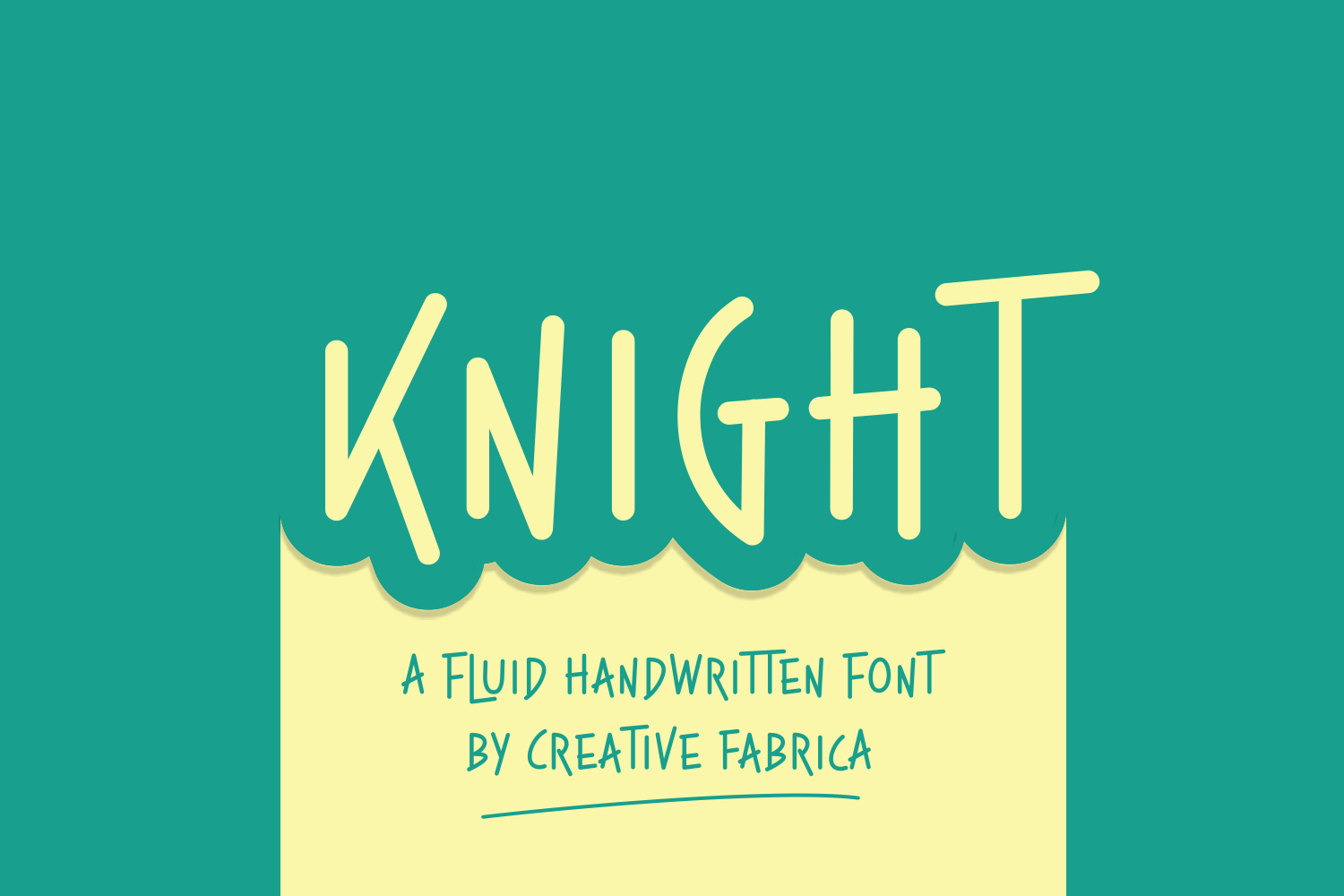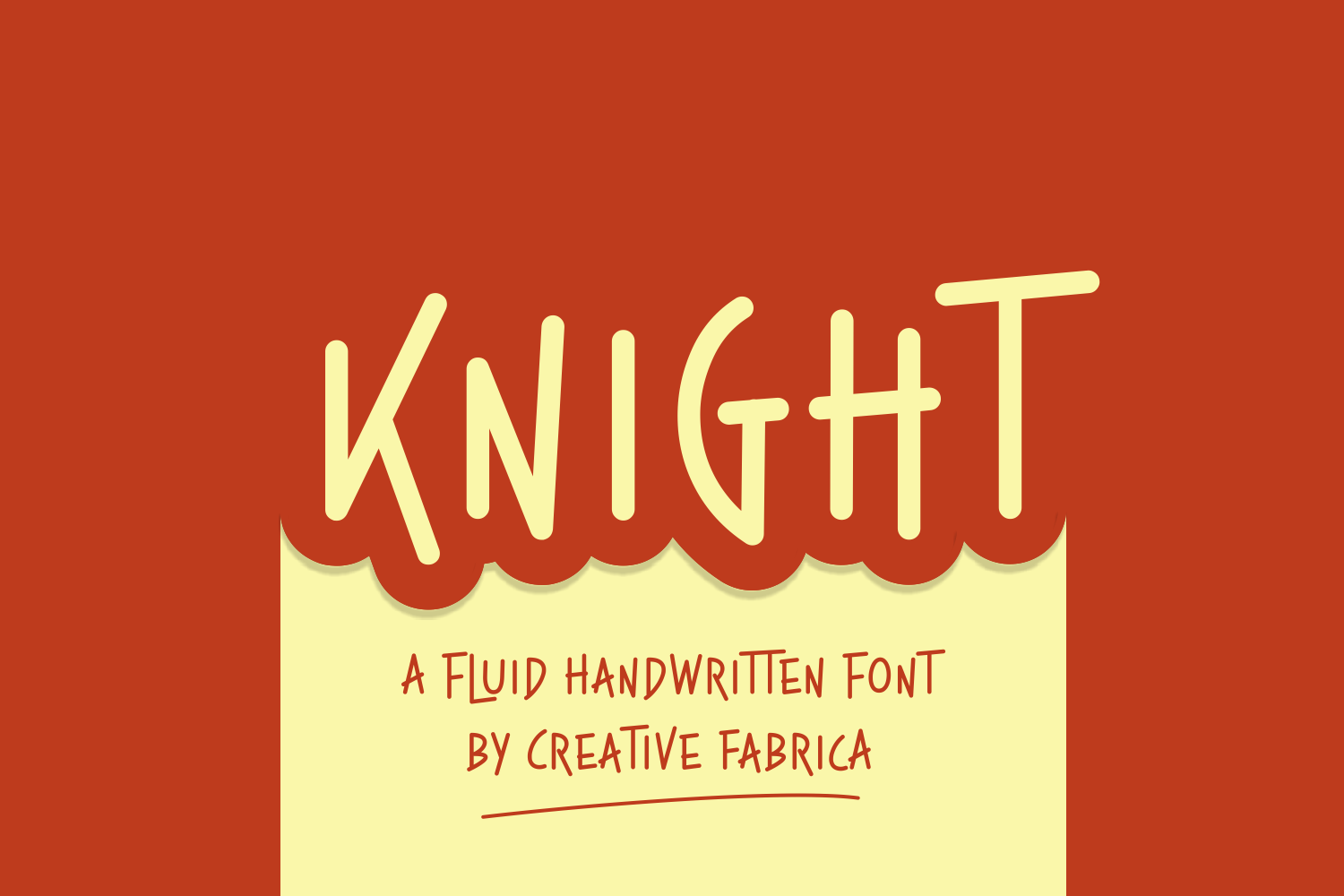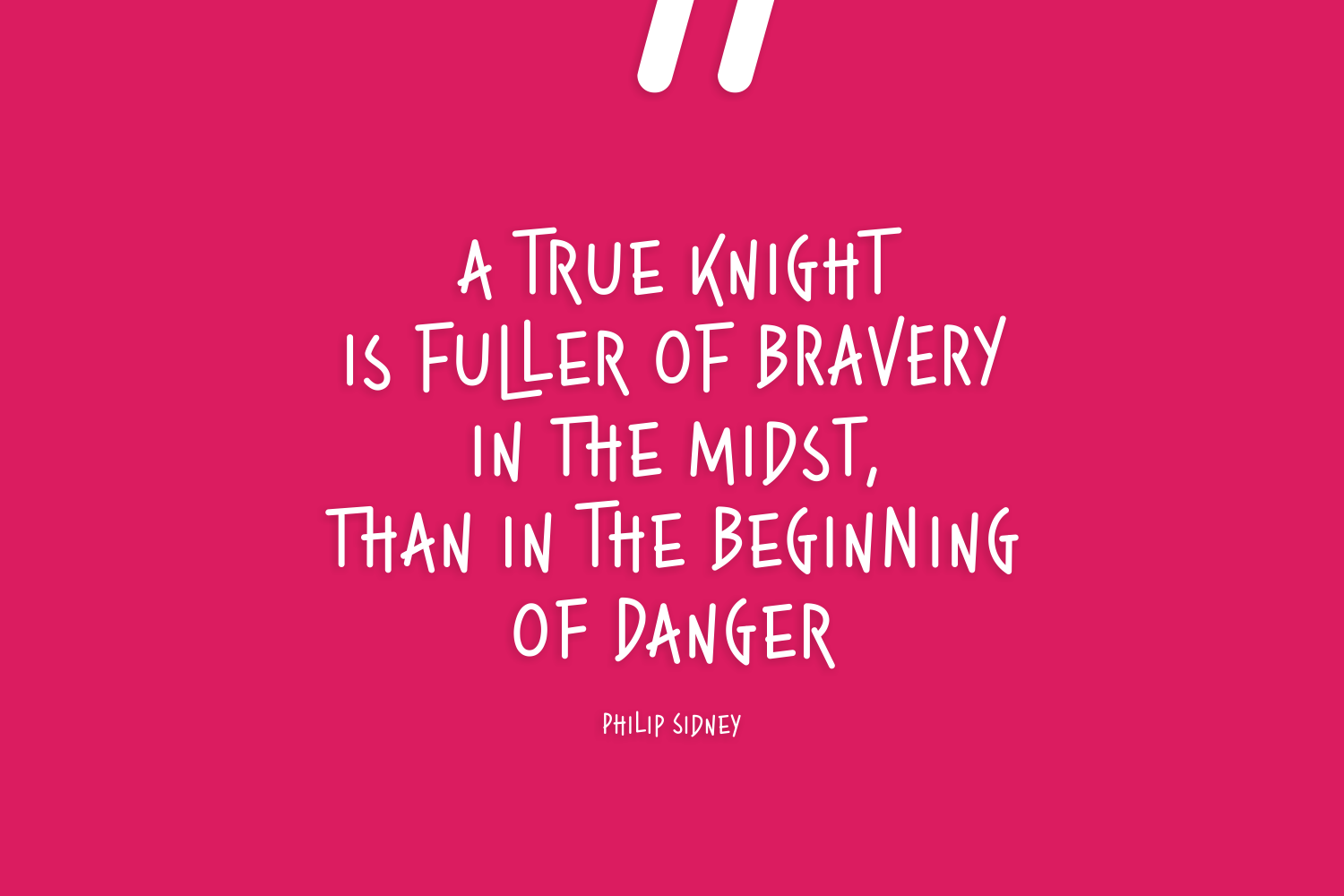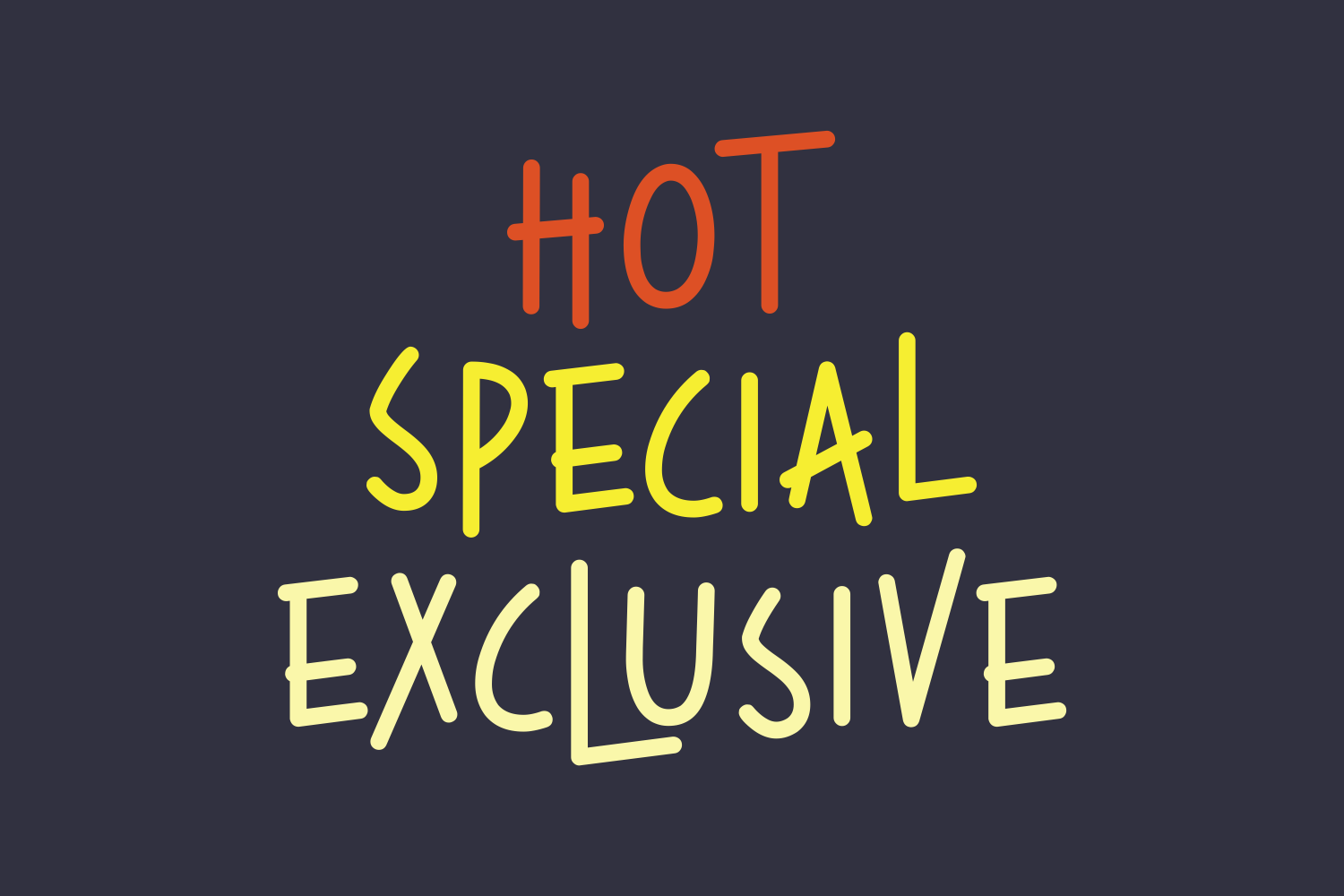
Knight Font
About Knight Font
Knight is a strong font which has wild looking letters thanks to it’s abrupt straight lines. Each glyph features rounded corners which add a friendly touch to the font.